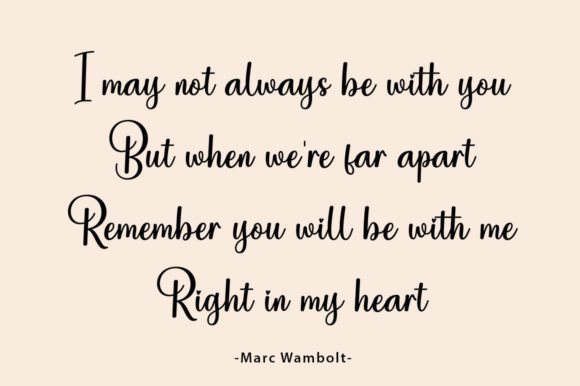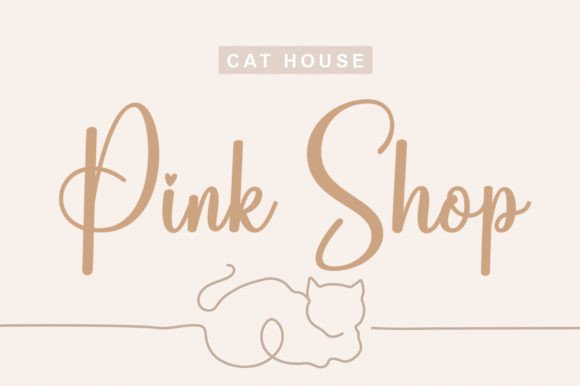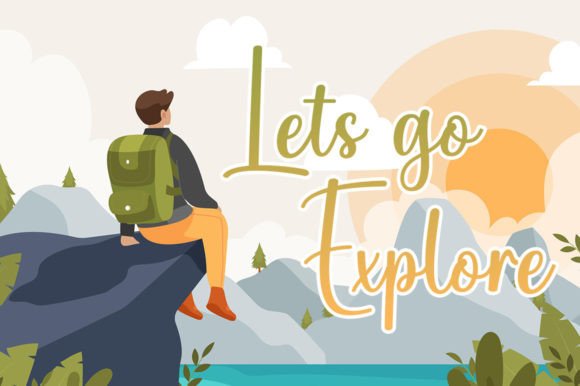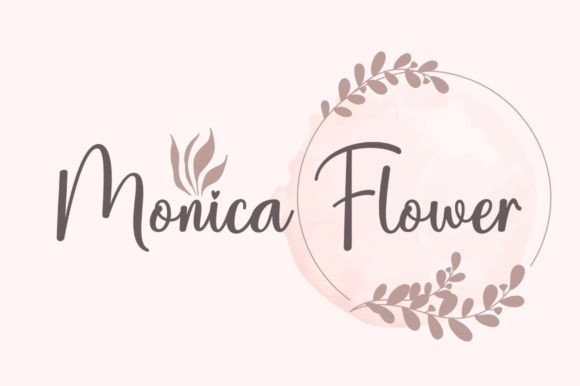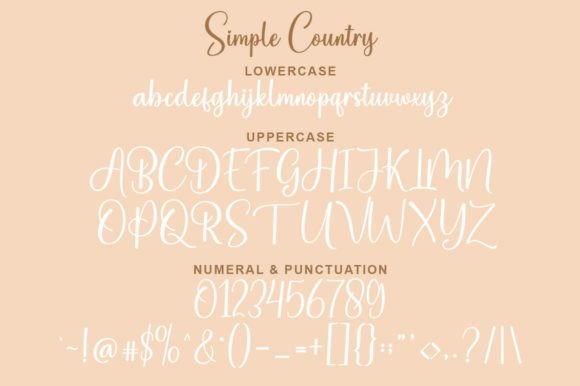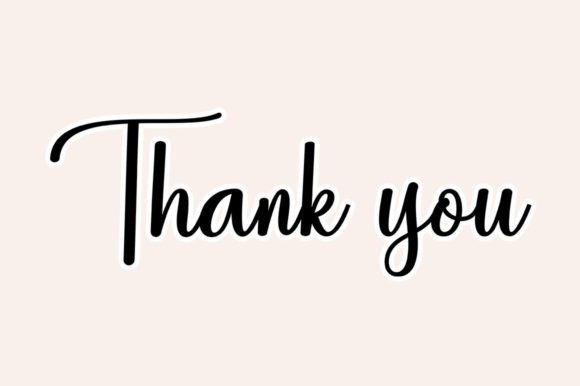
Introduction to Simple Country Font
Simple Country is a lovely and delicate script font that exudes elegance and class.
This font was particularly crafted for those who need a beautiful and refreshing look to their designs .
Simple Country Font offers exceptional quality and versatility, making it a valuable addition to your design toolkit. Whether you’re creating for personal projects or commercial use, Simple Country Font delivers professional results.